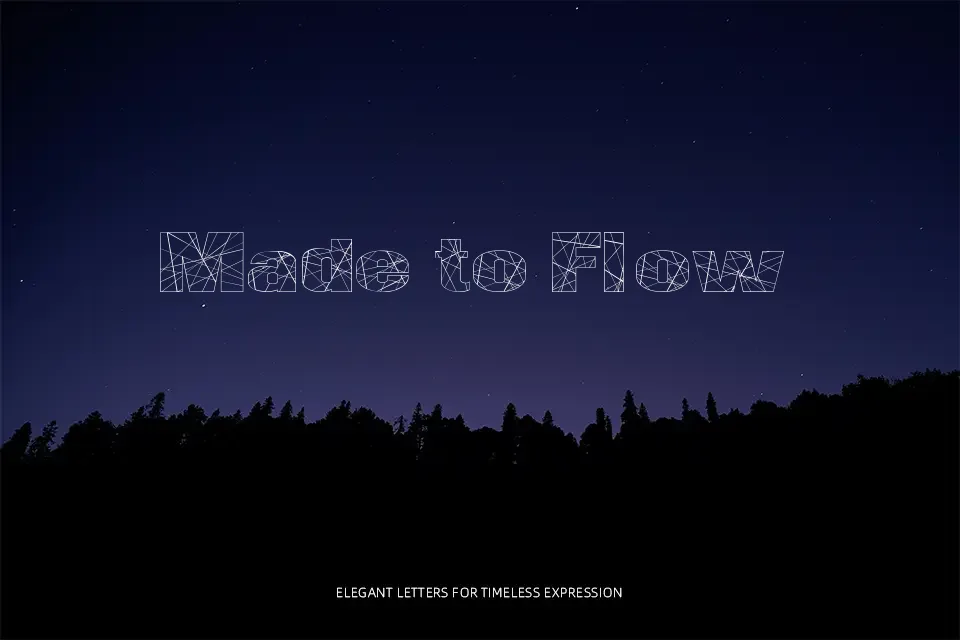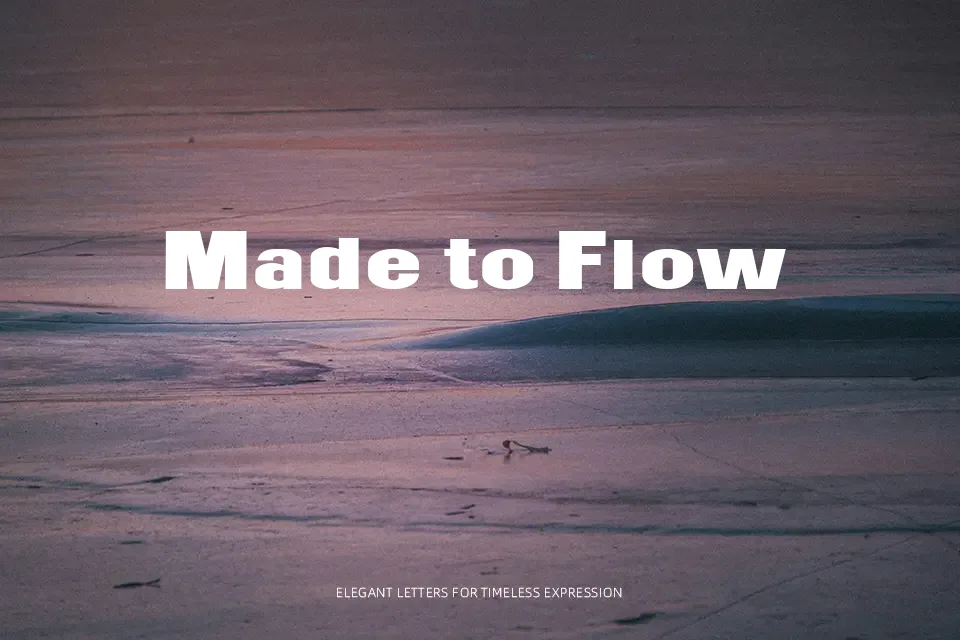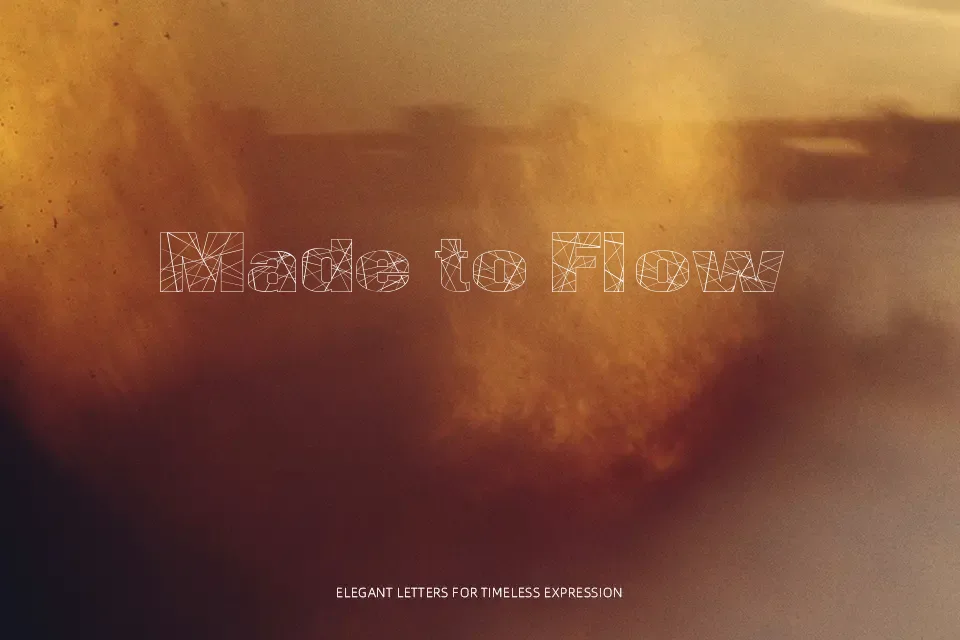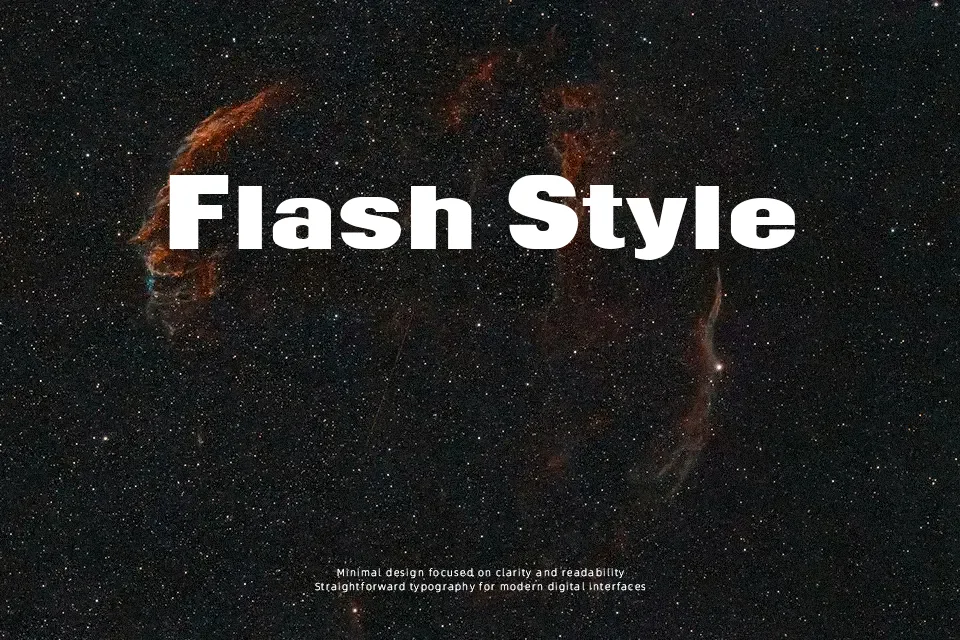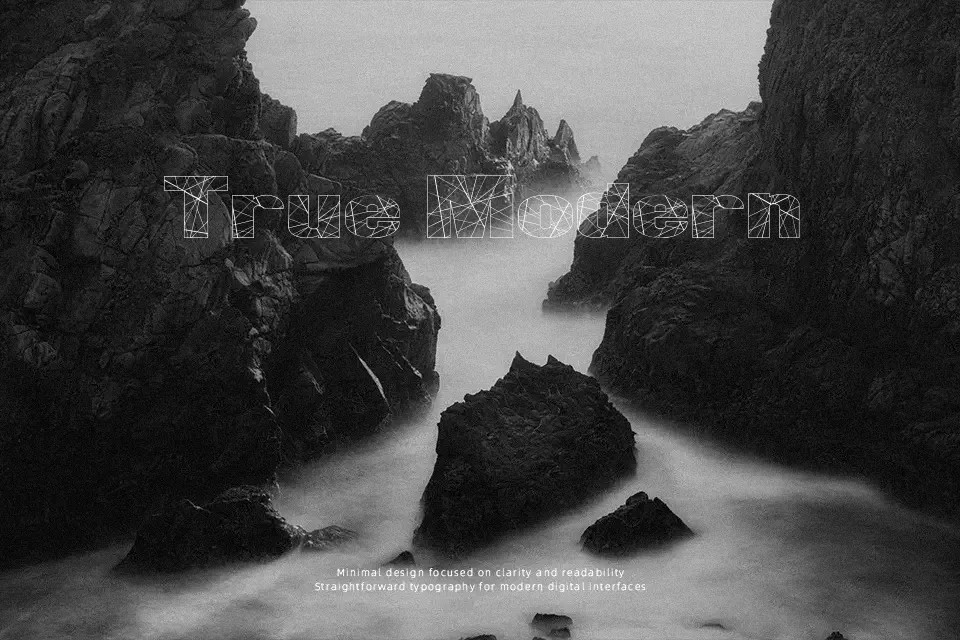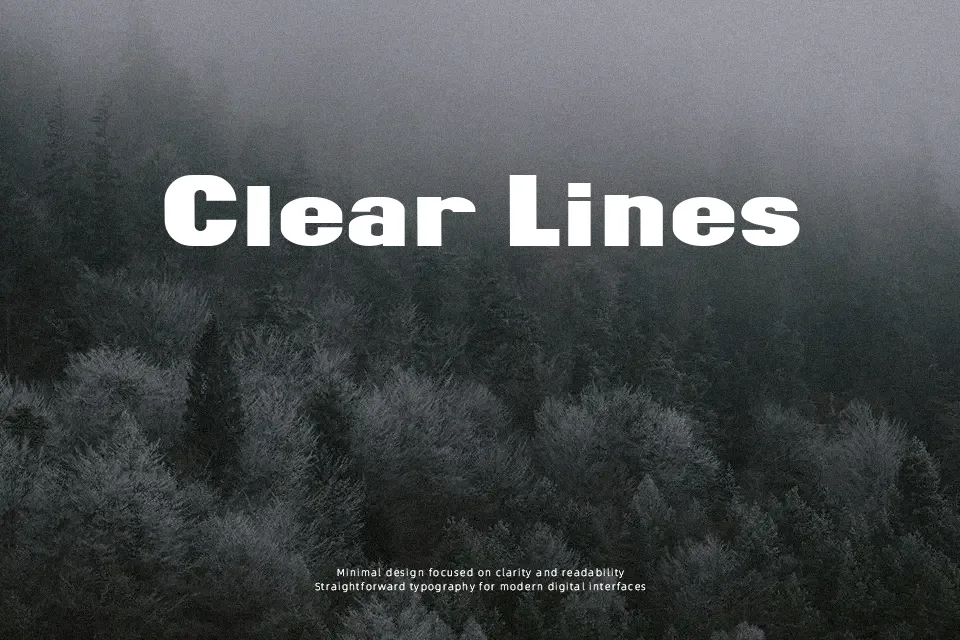
Action of the Time New Font
There’s a raw confidence to this font — the strokes carry deliberate weight, and the letterforms lean into a display-first mindset that resists blending into the background. Structurally, it favors impact over refinement, which makes it genuinely useful for music event posters, streetwear labels, and social media headers where attention is the goal. The spacing feels intentional, designed to work at large sizes rather than small. That same quality becomes a liability in body copy or anything requiring prolonged reading — the aggressive styling fatigues quickly at smaller scales. Where it earns its place is in single-line headers or short graphic bursts; where it stumbles is in layouts demanding versatility across multiple text sizes.
– Music event posters and concert flyers
– Streetwear or urban brand identity headers
– Social media graphic headlines
– Gaming or sports campaign visuals
– Body text or multi-line paragraphs
– Corporate or professional documentation
– Small-size print applications
– Formal invitations or editorial layouts
Perfect for branding, music, and poster, with a bold and decorative style.